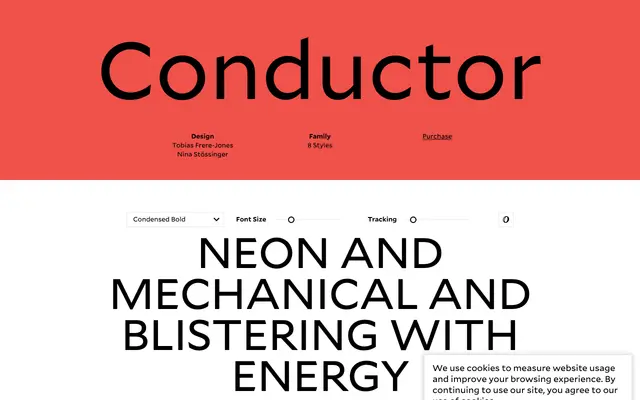
Conductor
Frere-Jones · Tobias Frere-Jones, Nina Stössinger
A bold display family by Tobias Frere-Jones and Nina Stössinger, built on contrasting geometric structures drawn from Bulgarian lottery ticket numerals and vernacular shopfront lettering.
Running across four widths from Condensed to Wide, Conductor exists solely in Bold with matching italics, giving eight styles in total. The roman is constructed on a grid of rectangles while the italic is built around triangles, creating a retro-classical dyad where the two styles are complementary yet independently legible. Dramatic weight contrast and a rich set of OpenType alternates make it well suited to editorial headers, branding and packaging where a distinctive, energetic voice is required.
A display family with dramatic weight contrast and a dual roman/italic structure, rooted in vernacular lettering and mid-century type. The geometric grid-based construction and bold-only offering across widths place it firmly in the display category.